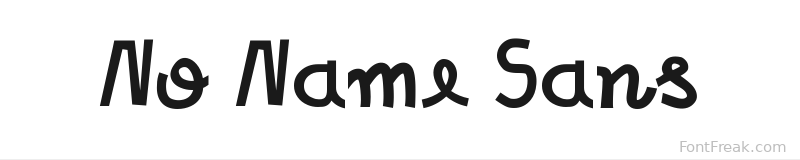
No Name Sans
About No Name Sans
No Name Sans, designed by Galdino Otten Fonts in 2013, is a captivating sans-serif typeface that brings a unique flair to any design project. With its clean lines and playful character, this font embodies a modern aesthetic while maintaining readability. The strokes are consistent in weight, providing a balanced appearance that works well in both large and small sizes. The spacing is generous, allowing your text to breathe, which enhances legibility on various backgrounds. Although it leans towards minimalism, the slight quirks in its letterforms add a touch of personality, making it an exciting choice for creative applications.
This versatile font is ideal for a wide range of use cases. It shines in branding materials, where its contemporary style can help businesses convey a fresh image. It is perfect for restaurant menus, providing an inviting look that encourages diners to take a closer look at the offerings. The No Name Sans font is also a fantastic choice for social media graphics, where engaging typography can make a significant impact. Additionally, it works well in presentations and infographics, helping to communicate information effectively while maintaining visual interest.
Targeting graphic designers, small business owners, and content creators, No Name Sans meets the needs of those looking for a modern, approachable typeface. Its freeware license makes it an accessible option for anyone seeking quality typography without the financial burden. The No Name Sans font free download allows users to experiment with a unique typeface that stands out in a crowded market. Ultimately, this font stands out due to its blend of simplicity and character, making it a valuable addition to any designer's toolkit.